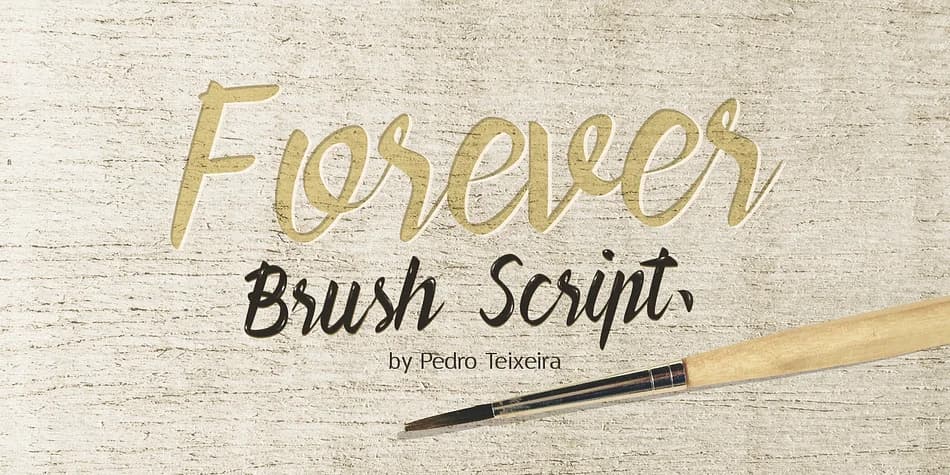
- Elegant, Flowing
Forever Brush Script Font is a script font that shines as a display or heading face. Pair it with a clean sans-serif or serif font for body text β the contrast creates a clear hierarchy while the two styles stay balanced and easy to read.
Forever Brush Script Font
Forever Brush Script Font is a script handwritten typeface by Pedro Teixeira, ideal for logos, invitations, branding, and creative projects.